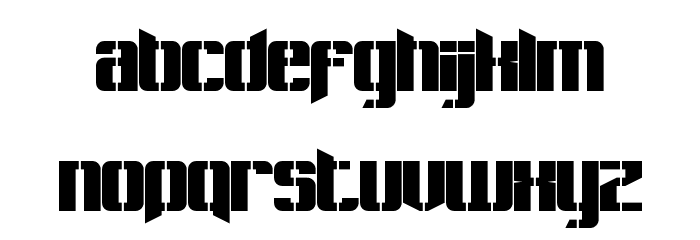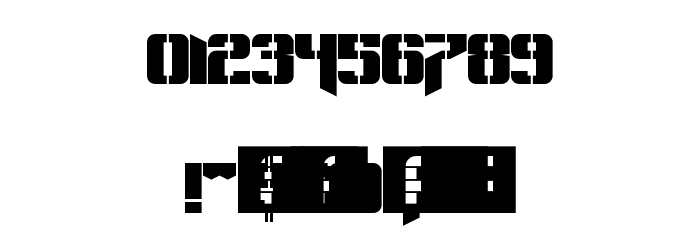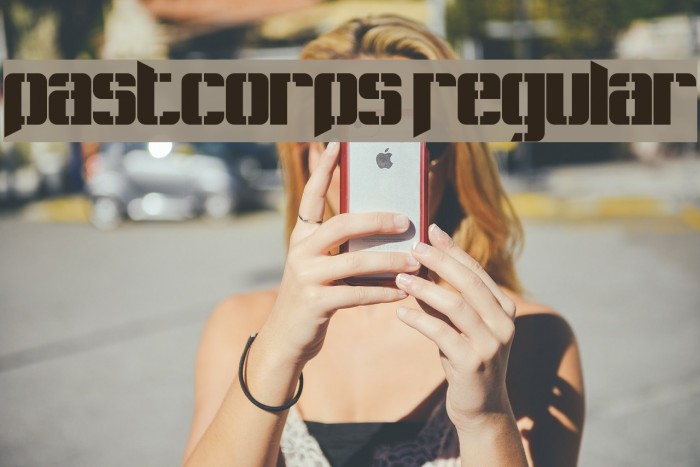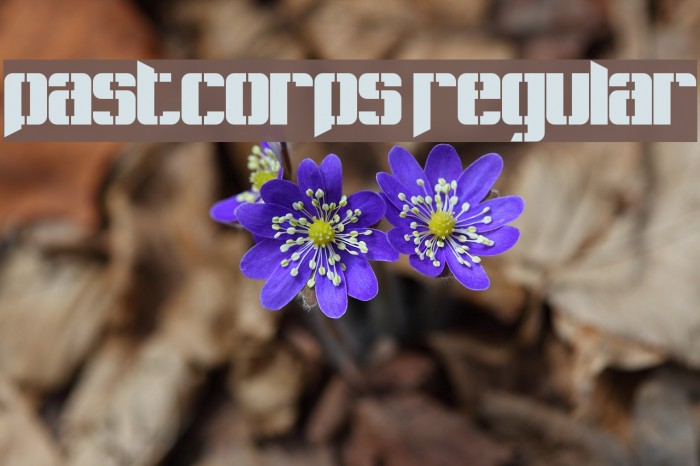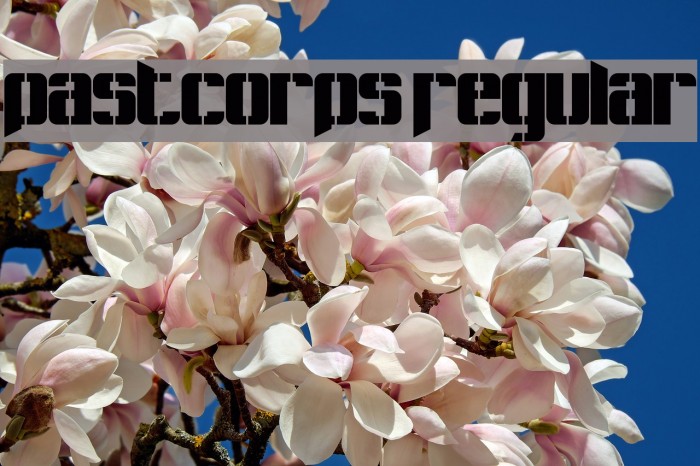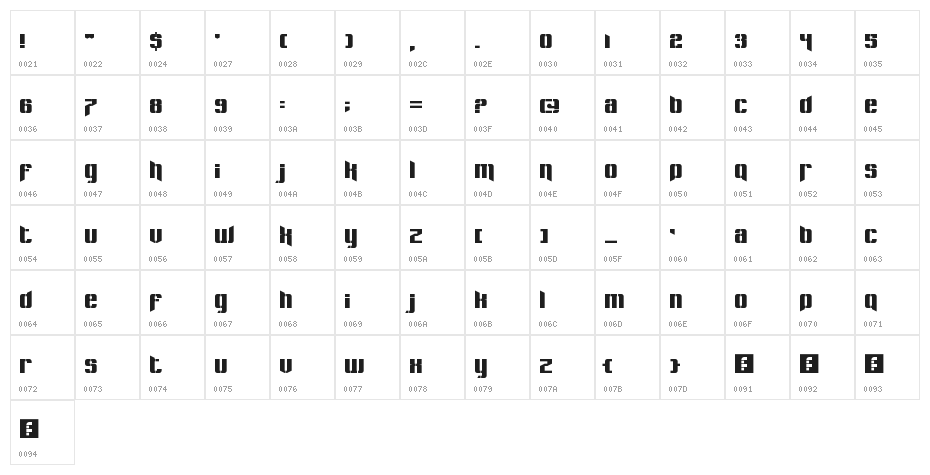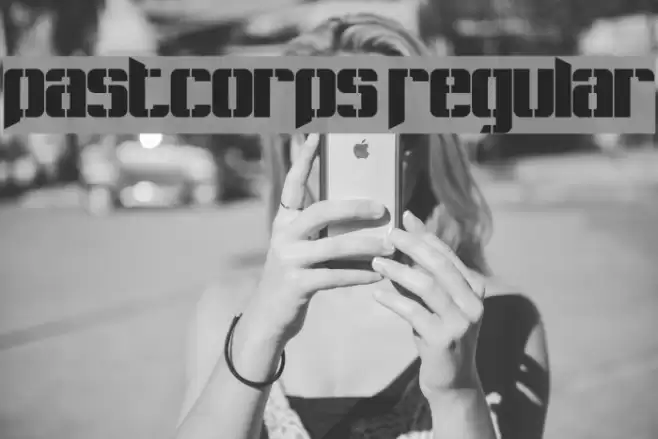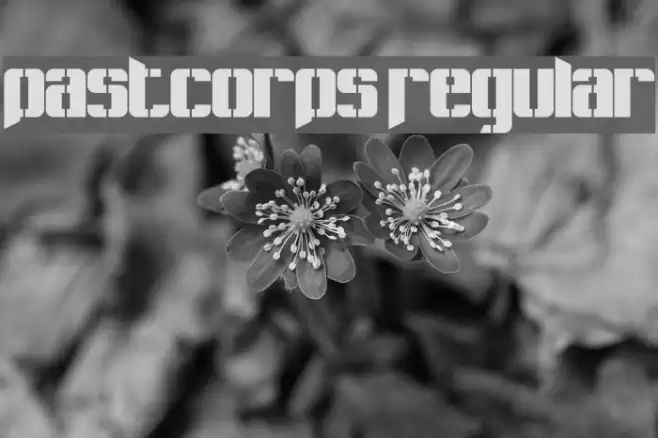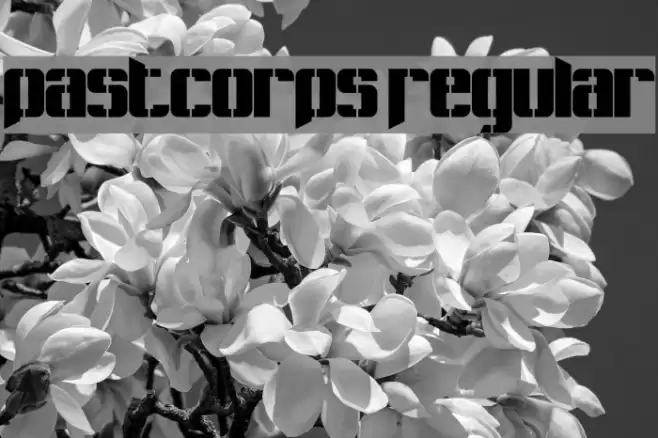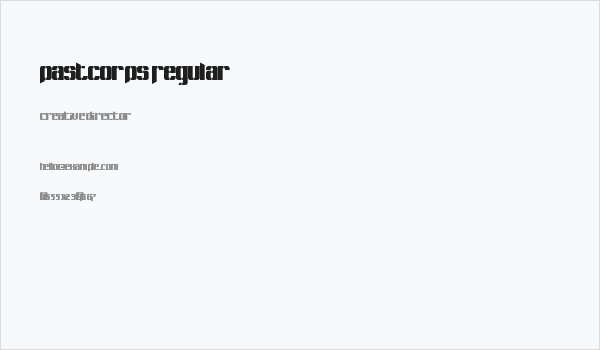
Pastcorps Regular Font
This font features a bold, geometric design with a strong emphasis on angular shapes and sharp edges. The characters are constructed with a block-like appearance, giving them a futuristic and industrial feel. The uppercase and lowercase letters maintain a consistent style, with unique cutouts and negative spaces that add to the font's distinctiveness. The numerals and special characters follow the same design principles, ensuring uniformity across all glyphs. This font's striking appearance makes it suitable for attention-grabbing designs.
A bold, geometric font with angular shapes and a futuristic, industrial feel.
- Proposed Projects: Ideal for use in branding, posters, album covers, and any design requiring a modern, edgy look.